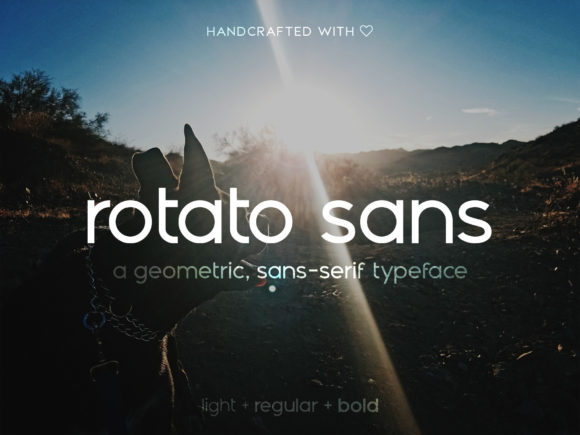
In a world where first impressions linger, Rotato Font emerges as a beacon of visual brilliance, a sans serif masterpiece crafted to elevate your branding endeavors. This font, brought to life by the visionary minds at vip, transcends the boundaries of ordinary typography, captivating audiences with its distinct character and undeniable charm.
With Rotato, your designs will dance off the screen, igniting a symphony of emotions and leaving an indelible mark on your audience. Its clean lines and contemporary flair instill a sense of sophistication, while its versatility allows it to seamlessly adapt to a kaleidoscope of creative concepts.
Whether you're crafting logos that speak volumes, weaving captivating headlines, or designing marketing materials that leave a lasting impression, Rotato Font stands as your ultimate ally. Its inherent readability ensures that your message cuts through the noise, while its captivating aesthetics add a touch of magic that transforms ordinary words into works of art.
Harness the transformative power of Rotato Font and watch as your branding soars to new heights. Experience the synergy between timeless elegance and modern innovation as you create designs that resonate with your audience, leaving them spellbound and yearning for more. Embrace Rotato Font today and unleash the boundless potential of your creative genius.